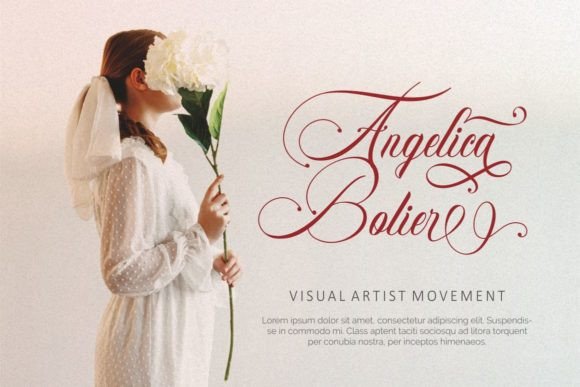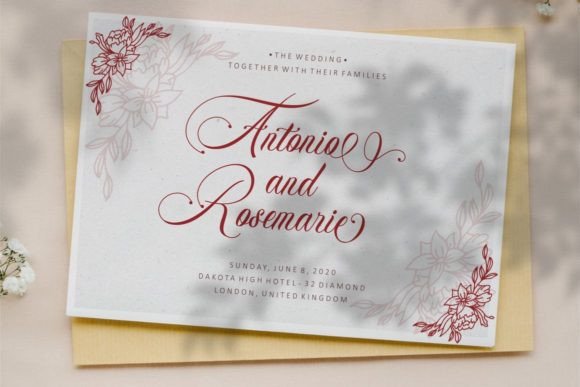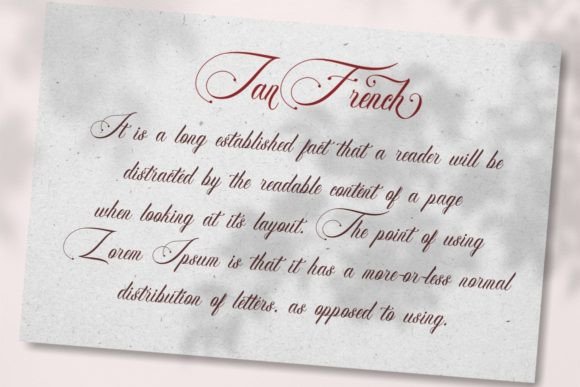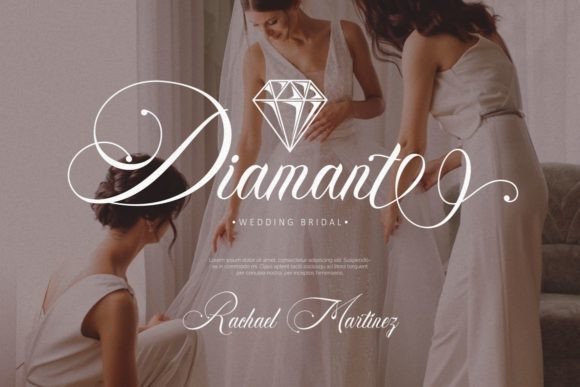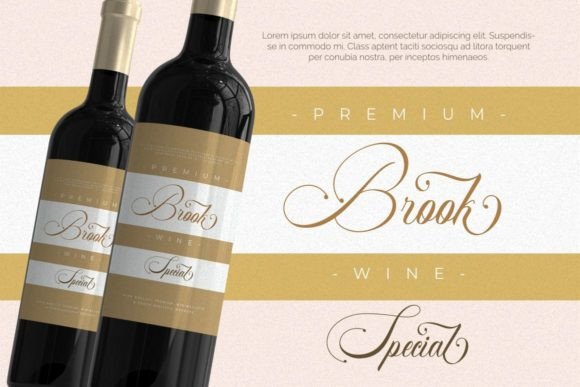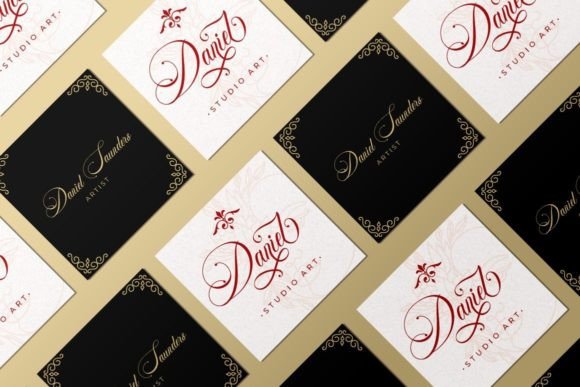
The Perfect Touch for Your Next Design Project
Have you ever stared at a blank page, pen in hand, searching for the perfect font to bring your creative vision to life? The struggle is real, but what if I told you that there’s a font that can elevate your designs and make them truly stand out?
Enter the Glamorous Carpet Font, a luxurious calligraphy font that’s been masterfully crafted to become a true favorite among designers. With its contemporary and fresh feel, this font is perfect for adding a touch of elegance to any design project. Whether you’re working on a wedding invitation, a branding project, or a digital graphic, Glamorous Carpet Font is the perfect addition to make your designs truly outstanding.
Glamorous Carpet Font Key Features
- Unique Characteristics: This font features a luxurious, high-end aesthetic with intricate details and subtle texture, making it perfect for designers looking to add a touch of sophistication to their projects.
- Font Style: Script, Calligraphy
Designer Review: Glamorous Carpet Font
First of all, I want to say that I love the name of this font – it’s catchy and immediately conveys the style of the font. ✨ The first thing that caught my eye was the elegant, cursive design that screams luxury and sophistication. The font is perfect for designers looking to add a touch of glamour to their projects, from wedding invitations to luxury product labels.
- ✨ The flowing, handwritten style is perfect for adding a personal touch to designs.
However, there are some limitations:
- ⚠️ The font may be too ornate for some designs, and could be overwhelming if used too liberally.
- ⚠️ The font is not suitable for small text sizes, as the details can get lost.
Overall, I would give the Glamorous Carpet Font 4 out of 5 stars. It’s a beautiful, elegant font that’s perfect for adding a touch of glamour to designs. However, it’s not suitable for every project, and designers should be careful not to overuse it. With some careful planning, this font can add a touch of sophistication to even the most mundane designs.
For the most effective use of the Glamorous Carpet Font, use it for titles, headings, and other eye-catching text elements. It’s perfect for creating a luxurious and sophisticated atmosphere in designs for weddings, fashion, or luxury brands.
Experiment with different font sizes, colors, and combinations to create a unique look that suits your design needs.